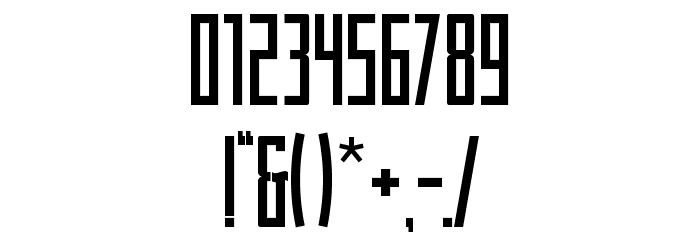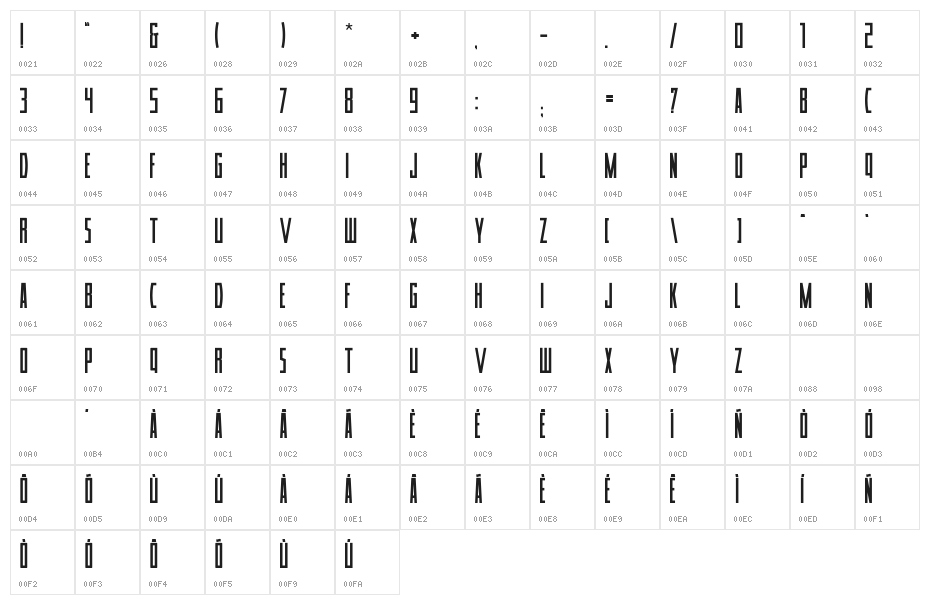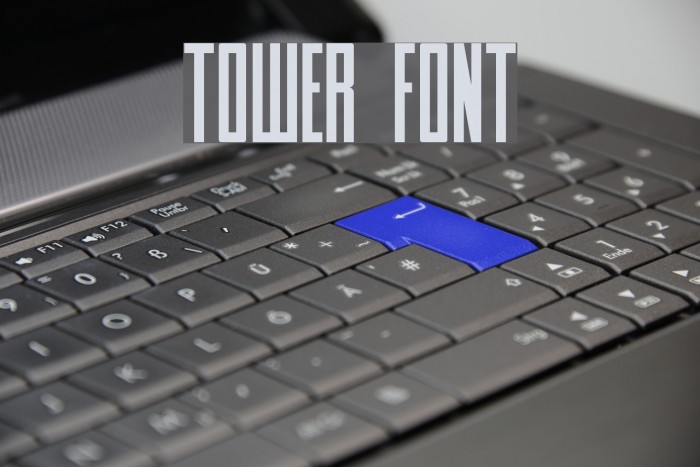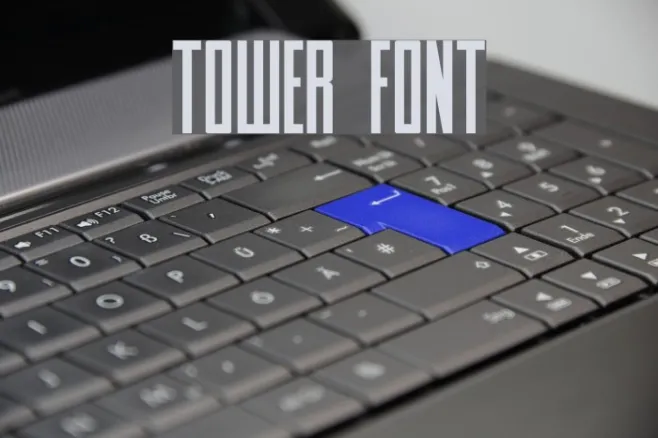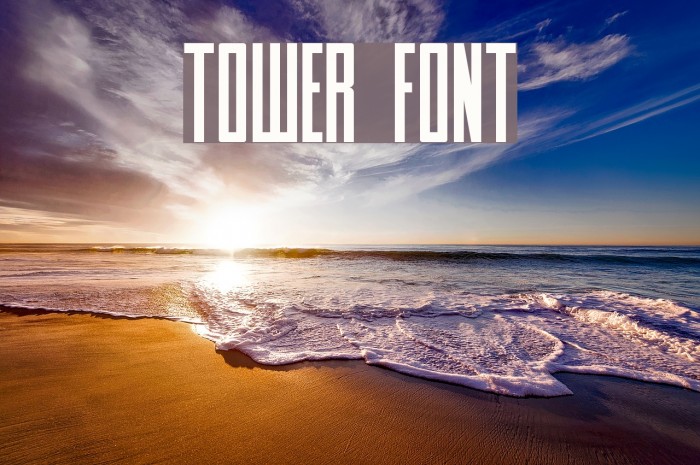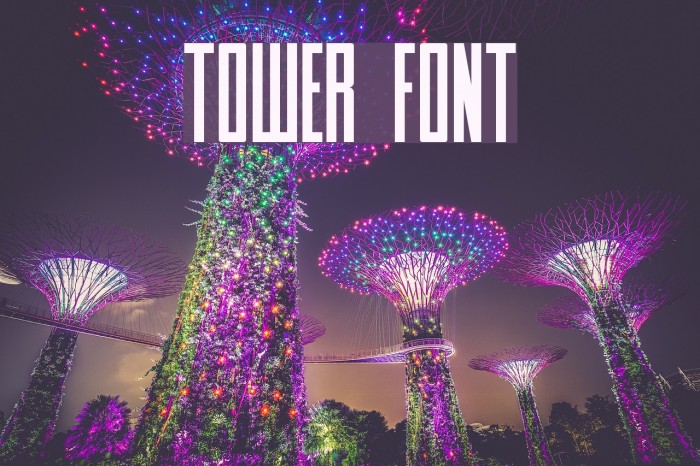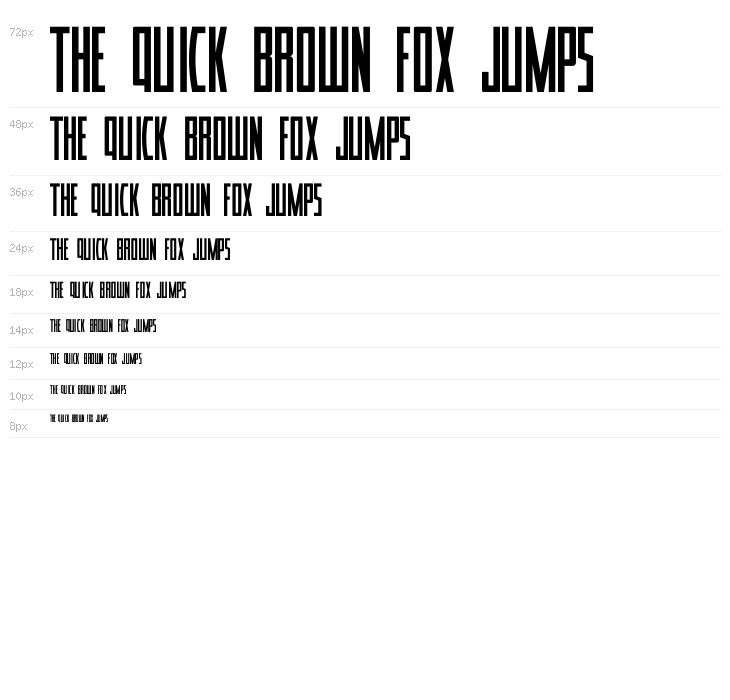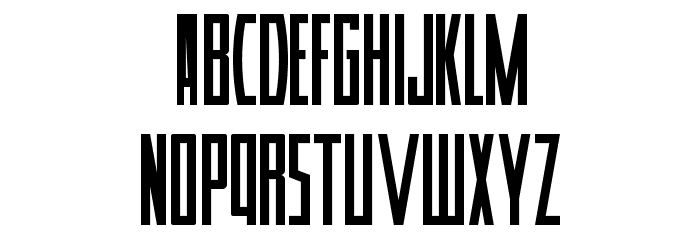
Tower Font
Tower Description
This font features a tall, narrow design with a distinct geometric style. The characters are elongated, giving a sense of height and elegance. The strokes are consistent in width, providing a uniform appearance across all letters and numbers. The font's sharp angles and clean lines contribute to a modern and sophisticated look. It is particularly effective for creating a bold visual impact, making it suitable for attention-grabbing headlines or titles. The spacing between characters is tight, enhancing the compact and streamlined aesthetic.
| Proposed Projects | Ideal for posters, headlines, branding, and editorial design where a striking and modern look is desired. |